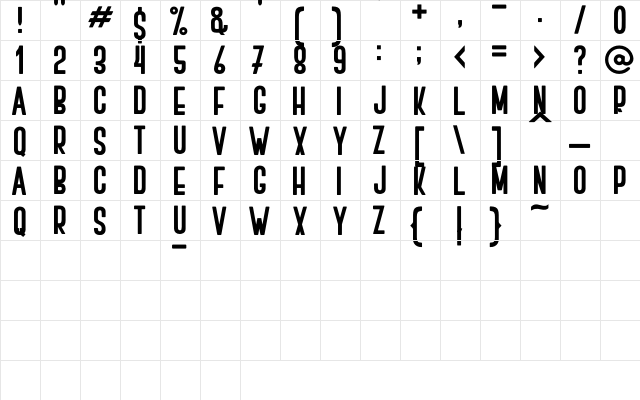
BOVEN 2 Regular
| Designer | Muhammad romzul khoir |
Design Context for BOVEN 2 Typeface
BOVEN 2 offers clean, dependable letterforms without strong stylistic allegiance, making it a practical choice for designers who need flexibility.